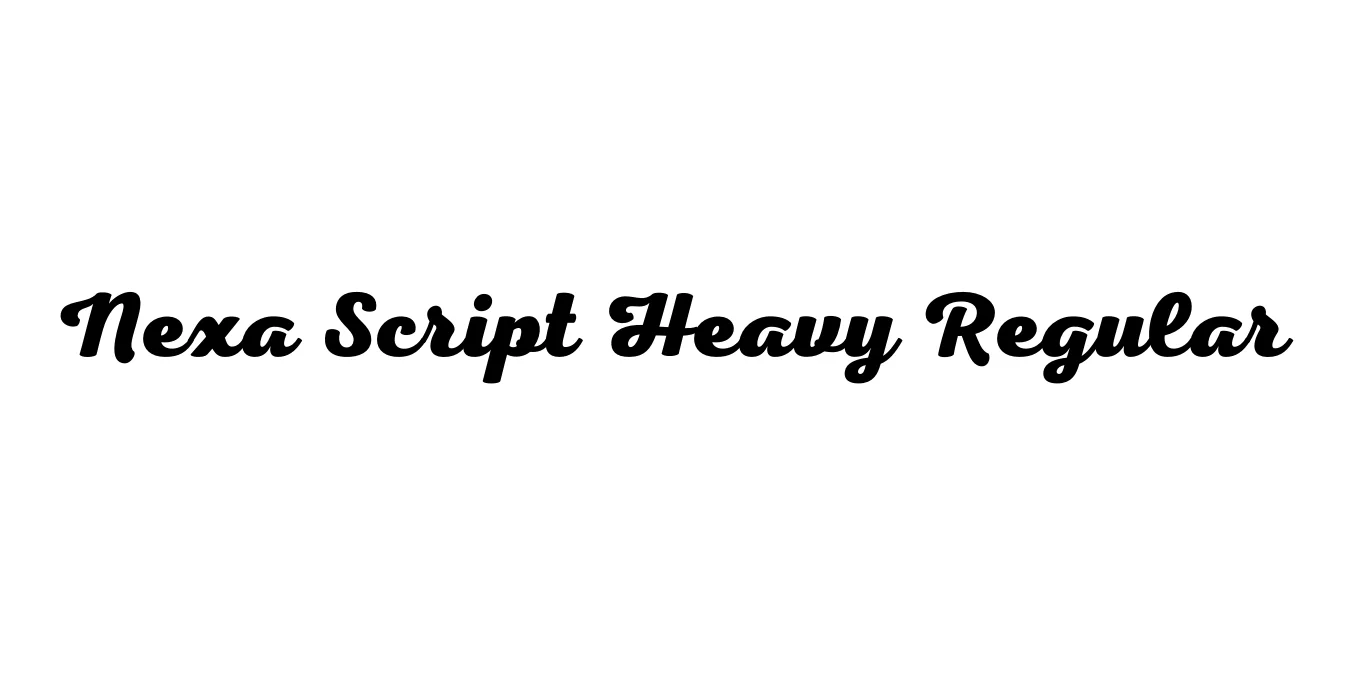
Nexa Script Heavy Regular
Designed by Svetoslav Simov
Nexa Script Heavy Regular is a distinct part of the extensive Nexa family, created by Svetoslav Simov and published by the Bulgarian foundry Fontfabric. This typeface was designed to complement the clean, geometric nature of the original Nexa sans-serif while introducing a fluid, handwritten aesthetic. The Heavy weight is particularly notable for its robust character and high stroke contrast, offering a powerful visual presence that maintains the friendliness of a script font.
The design of Nexa Script Heavy Regular focuses on legibility and flow, featuring carefully crafted connections that ensure a seamless reading experience. Since its release, it has become a popular choice for designers looking to bridge the gap between technical precision and organic design. Its bold, thick lines make it ideal for high-impact displays, ensuring that the script remains legible even from a distance or on complex backgrounds.
Nexa Script Heavy Regular Best Uses
Ideal for creating strong, friendly logos that require a personal touch.
Perfect for high-impact headlines and promotional banners.
Excellent for labels on consumer goods that want to appear artisanal yet professional.
Great for hero images and stylish call-to-action buttons.